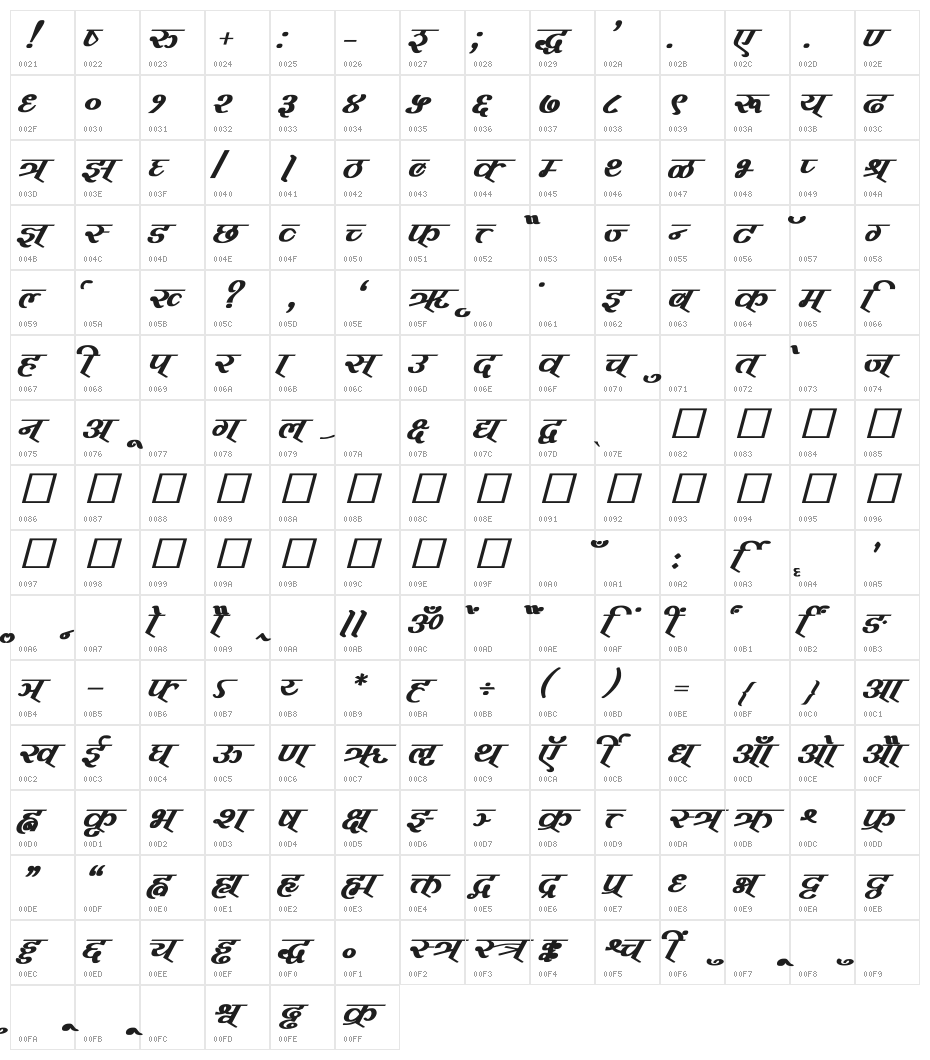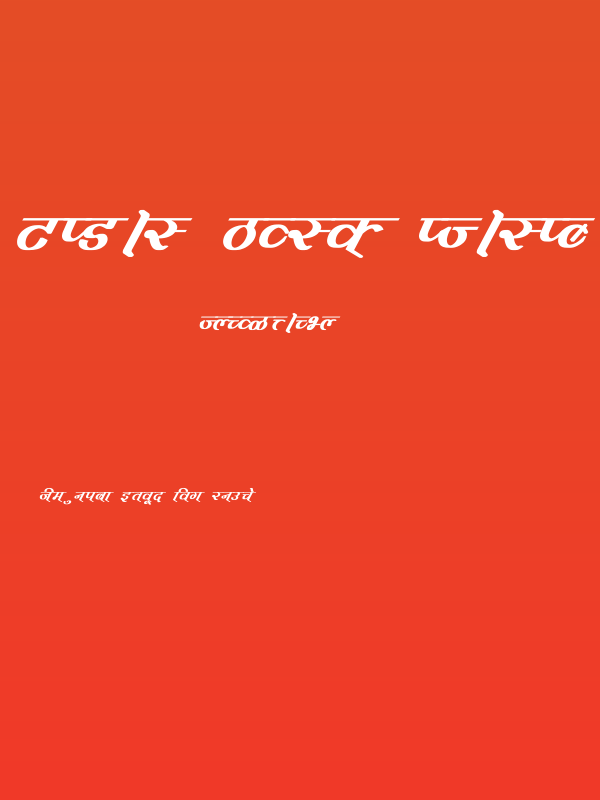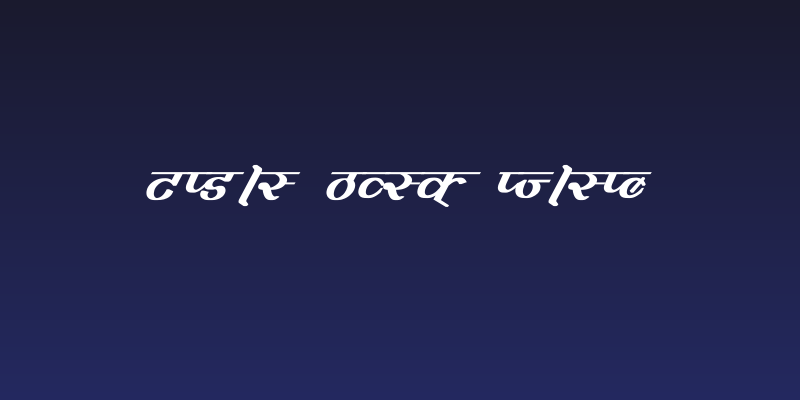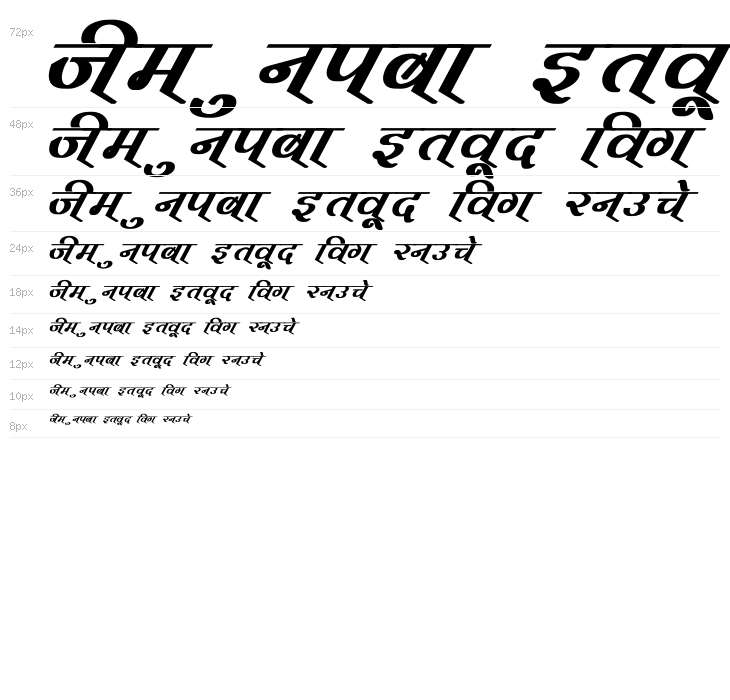
Vimal Bold Italic Font
Vimal Bold Italic Description
This font exhibits a bold and italicized style, characterized by its dynamic and flowing script. The strokes are thick and pronounced, giving it a strong presence. The characters are connected in a cursive manner, which adds a sense of movement and elegance. The font maintains a consistent slant throughout, enhancing its italic nature. The numerals and special characters are designed to match the overall style, ensuring uniformity across all elements. This font is well-suited for decorative purposes, where a bold and expressive typeface is desired.